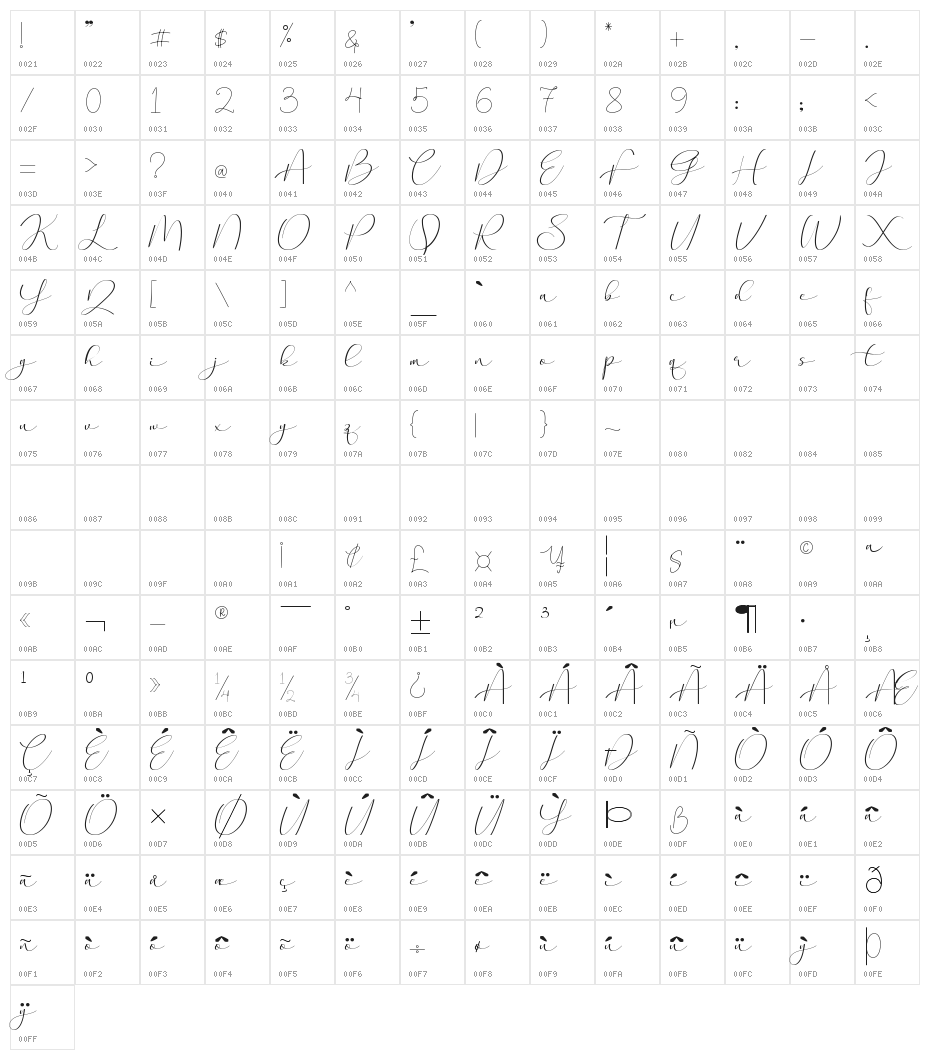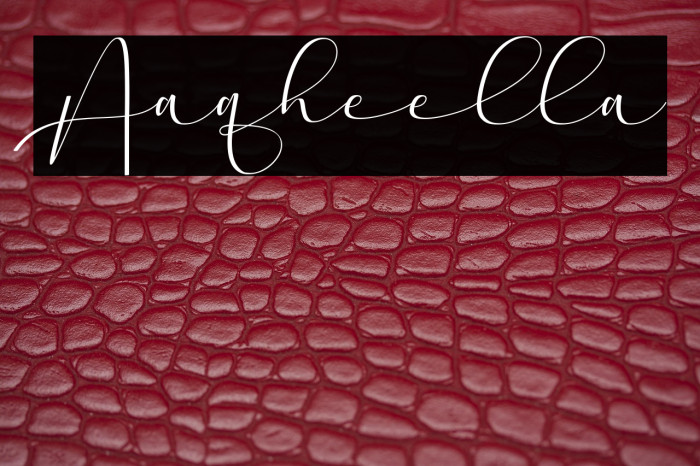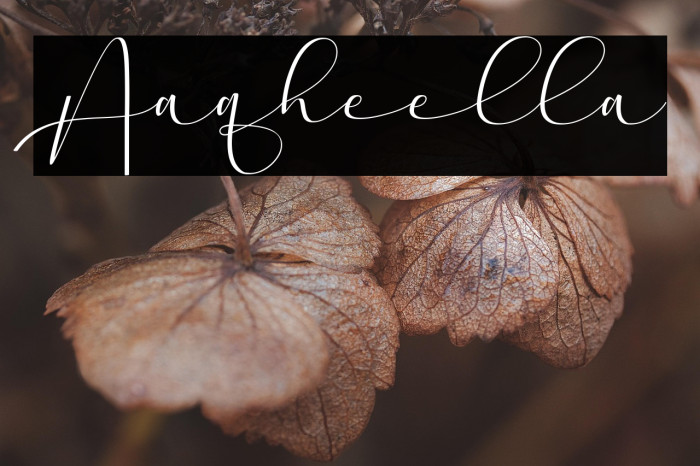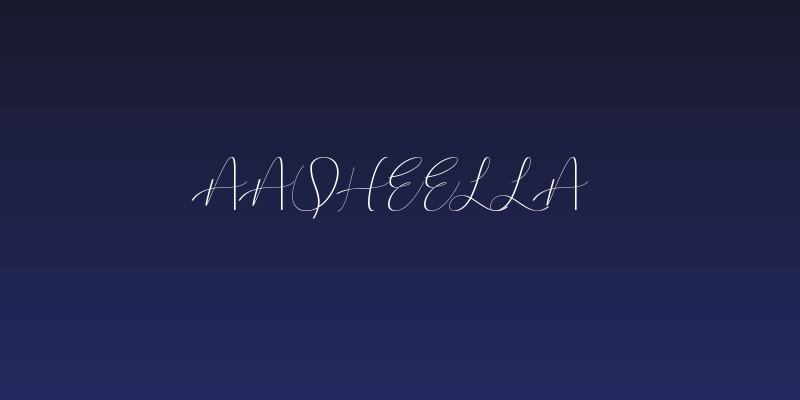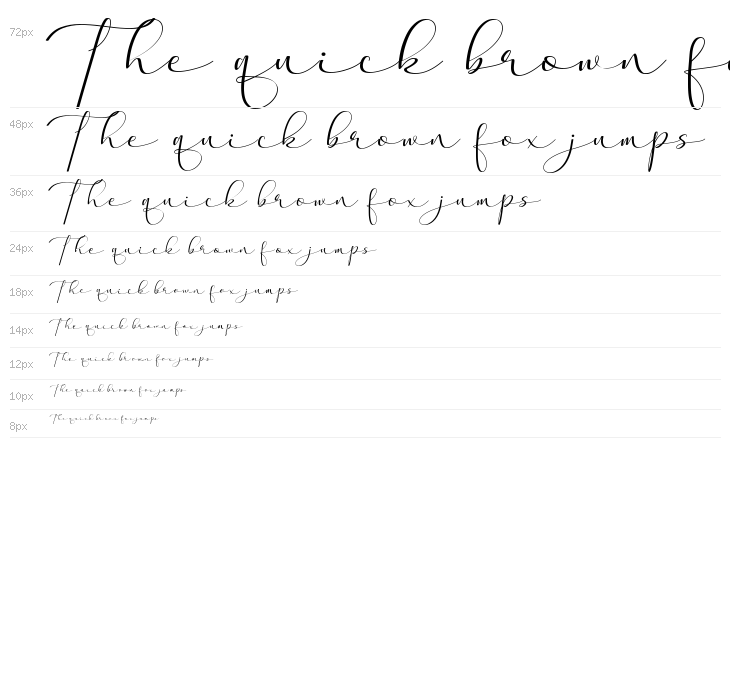
Aaqheella Font
Aaqheella Description
This elegant script font features a flowing, cursive style with delicate, sweeping lines and graceful curves. The uppercase letters are tall and slender, with intricate loops and flourishes that add a touch of sophistication. The lowercase letters maintain a consistent flow, connecting seamlessly to create a harmonious and fluid appearance. The numerals are designed with a similar elegance, featuring rounded shapes and subtle embellishments. Special characters are thoughtfully crafted to match the overall aesthetic, making this font ideal for projects that require a touch of refinement and elegance.
| Overall Style | Elegant, Sophisticated |
| Proposed Projects | Ideal for wedding invitations, elegant branding, high-end product packaging, and sophisticated greeting cards. |